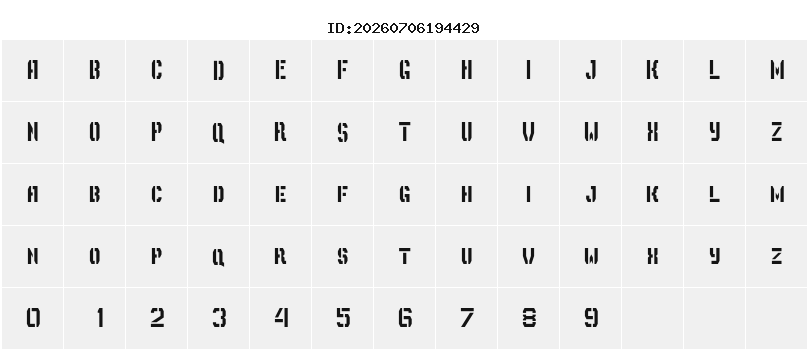
DepotTrapharet Preview
• Font Name: DepotTrapharet
• Designer: Lukyan Turetskyj
• Manufacturer: Lukyan Turetskyj
About DepotTrapharet.otf
DepotTrapharet.otf is a modern, elegant sans-serif font designed for ultimate readability and visual harmony. Perfect for branding, headlines, web design, and print materials.